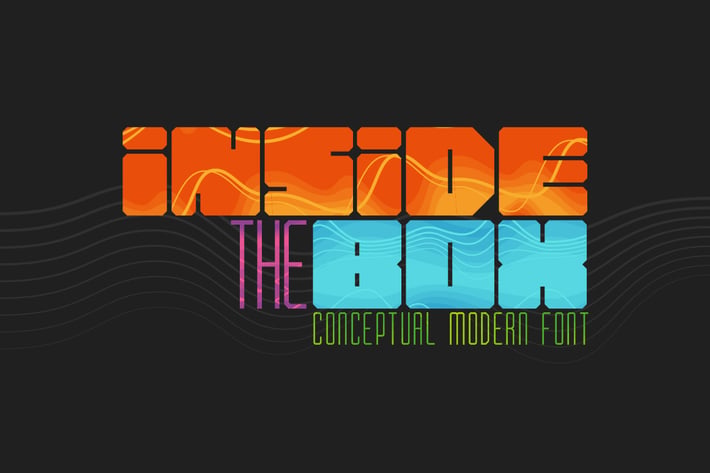
Inside the BOX Font
Hi! Introducing conceptual modern typeface "Inside the BOX". It`s two-in-one font - big letters are made bold and fat :) and small letters are thin. Thank you for your attention and have a nice day!